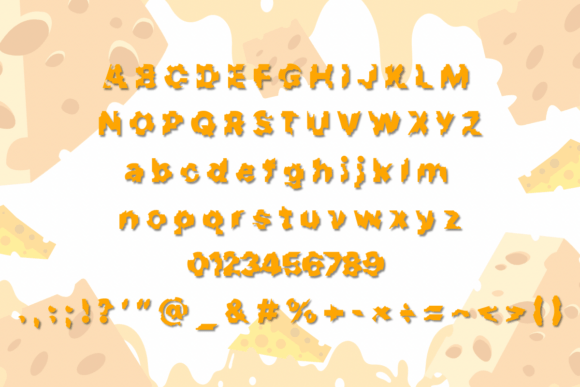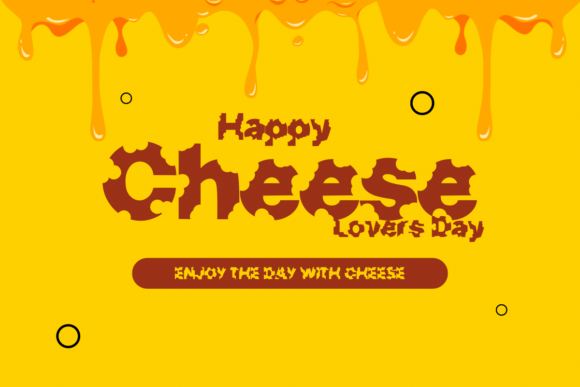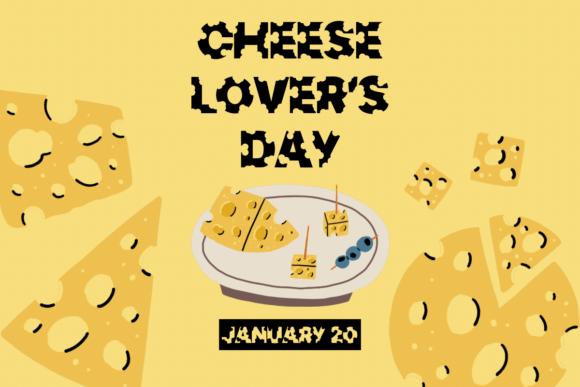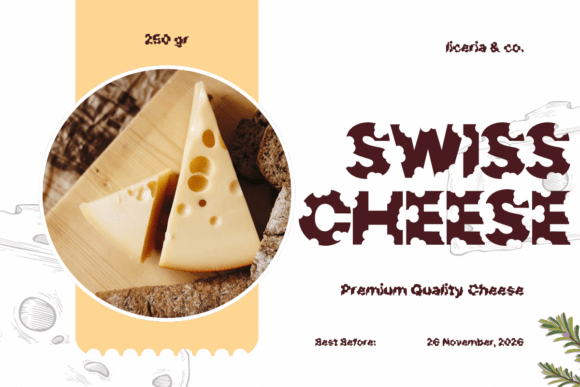
The Perfect Slice of Creativity: Cheese Font
Enter Cheese Font, a charming display font designed to bring a smile to your face and a touch of whimsy to your designs. Perfect for jotting down notes, crafting greeting cards, or creating social media posts, Cheese Font is a versatile tool that’s sure to become a favorite among designers. Its value lies not only in its aesthetic appeal but also in its adaptability, making it an excellent choice for a wide range of projects, from banners and mugs to shirts and stationery.
- Font Family: Cheese Font is a unique display font designed for headlines and titles.
- Size: The font family includes 6 different font weights, ranging from Thin to Black, allowing for versatile design applications.
- Unique Characteristics: Distinctive, hand-drawn style with a playful and whimsical feel, perfect for adding a touch of personality to designs.
- Character Set: Includes a comprehensive character set, including Latin, Cyrillic, and Greek alphabets, making it suitable for global designs.
Overall, I have mixed feelings about the Cheese Font. While it has some great qualities, it also has some significant limitations. ✨
- Unique character: The Cheese Font has a distinctive, playful feel that can add a lot of personality to a design.
- Good for headings: The font is well-suited for headings and titles, where its bold and whimsical style can really shine.
- Customizable: The font offers a range of customization options, making it easy to adjust the size, color, and style to fit your needs.
- Readability issues: The font’s playful style can sometimes make it difficult to read, especially in larger blocks of text.
- Limited versatility: While the font is great for headings, it may not be the best choice for body text or more formal designs.
- Overuse potential: The font’s unique style may lead to overuse, which can make a design look amateurish or unpolished.
In conclusion, the Cheese Font is a fun and playful addition to any design, but it’s not without its limitations. With careful use and consideration, it can be a great choice for the right project.
Tip: Use the Cheese Font for a playful and eye-catching effect in your designs. It pairs well with bold colors and fun graphics.
Tip: Use the Cheese Font for creating whimsical and humorous graphics, such as memes or cartoons.
Tip: Use the Cheese Font for adding a touch of humor and personality to your presentations and documents.
The Cheese Font is ideal for:
- Food-related designs, such as restaurant menus or food blogs.
- Playful and humorous graphics, such as memes or cartoons.
- Whimsical and eye-catching designs, such as invitations or party decorations.